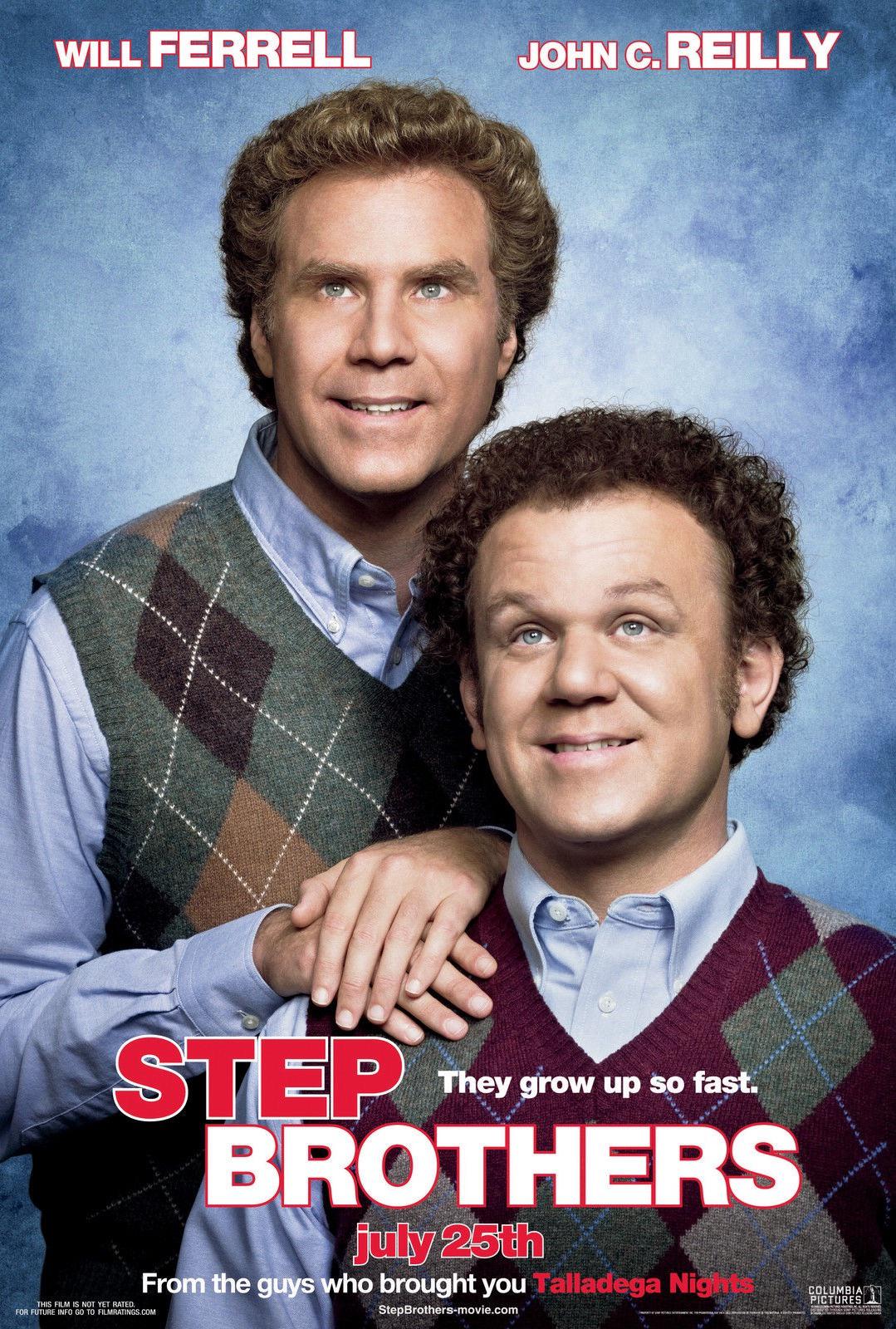
Step Brothers Font
ComedyStep Brothers is a 2008 American comedy film directed by Adam McKay. The film stars Will Ferrell and John C. Reilly as middle-aged stepbrothers who are forced to live together after their parents marry one another.
The Step Brothers title on the poster is designed in outlined caps from Helvetica Black by Max Miedinger and Eduard Hoffmann. Helvetica is a neo-grotesque typeface that is based on the popular Akzidenz-Grotesk typeface from the 19th century.